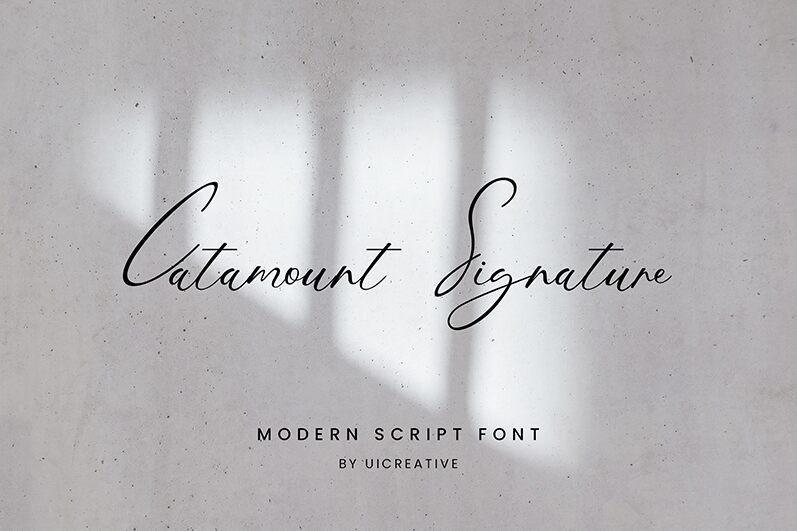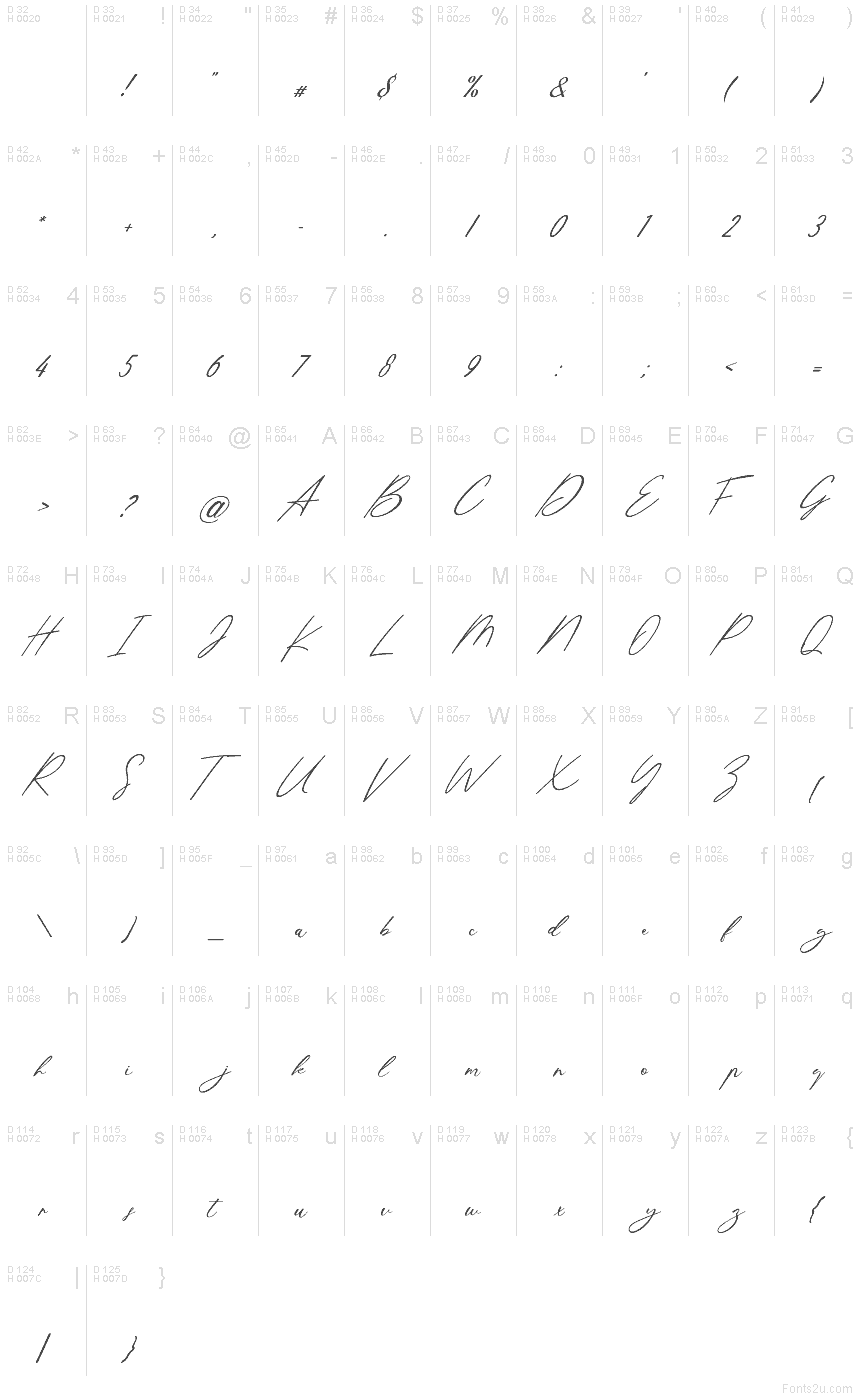
CatamountSignature
Catamount Signature font is a free handwritten font by UI Creative which invites everyone to perfect their signatures in style. Taking its written form from cursive writing, it instantly breathes life into every character. Its curves and thin lines add an elegant look to each letter, giving business cards and other typography projects that extra push.
Use this pleasant yet simple typeface for brand names, logo designs, greeting cards for special occasions, invitations and decorations for weddings and engagements as well as cosmetic labels. Its originality can also be presented with app or website designs with stylish headers used in fashion-related platforms.